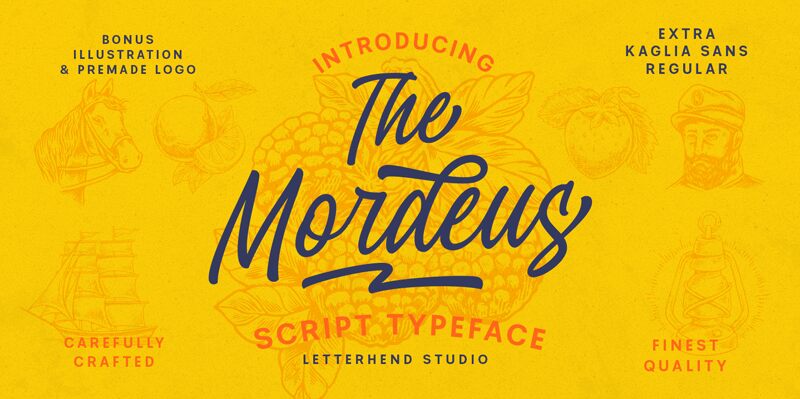
The Mordeus, designed by Letterhend Studio, is a captivating handwritten font that exudes elegance and personality. With its semi-light weight and semi-condensed width, this font is perfect for a wide range of creative projects. Its delicate strokes and flowing curves make it ideal for designing wedding invitations, greeting cards, or any project that requires a touch of sophistication. The Mordeus adds a unique charm to logos, branding materials, and packaging designs. Whether you're crafting book covers or creating social media graphics, this versatile font will elevate your creations to new heights.
The Mordeus Demo